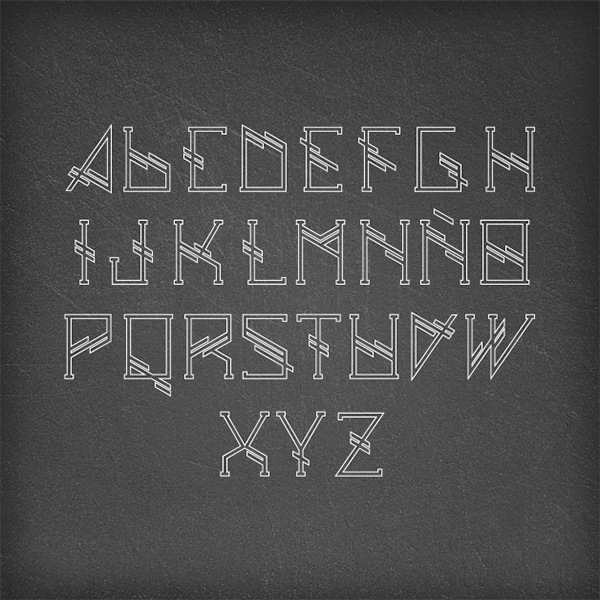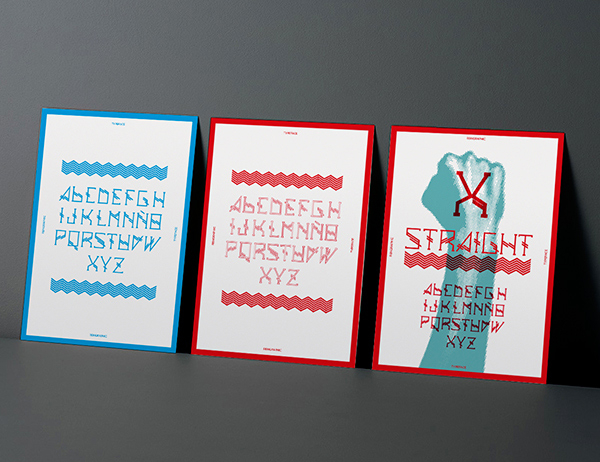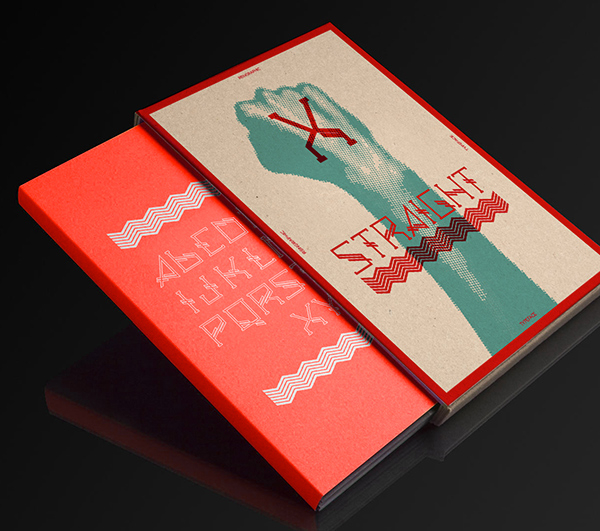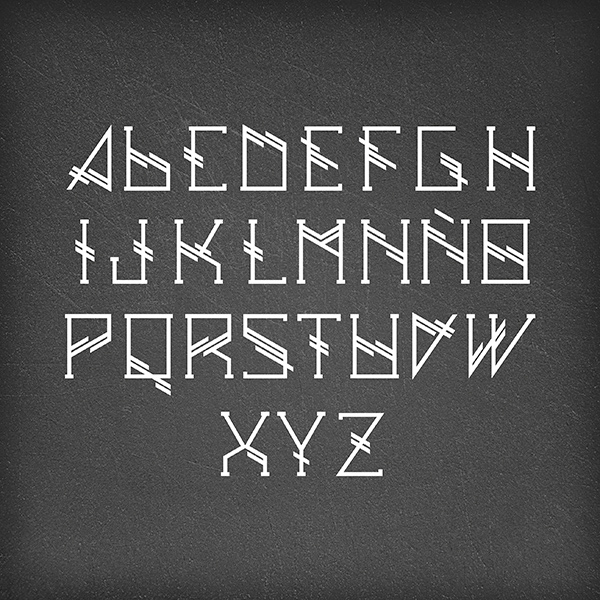
Straight Typeface
Hipster typeface based on straight lines.
It becomes in regular and outline style and also there is a poster design with the typeface file.